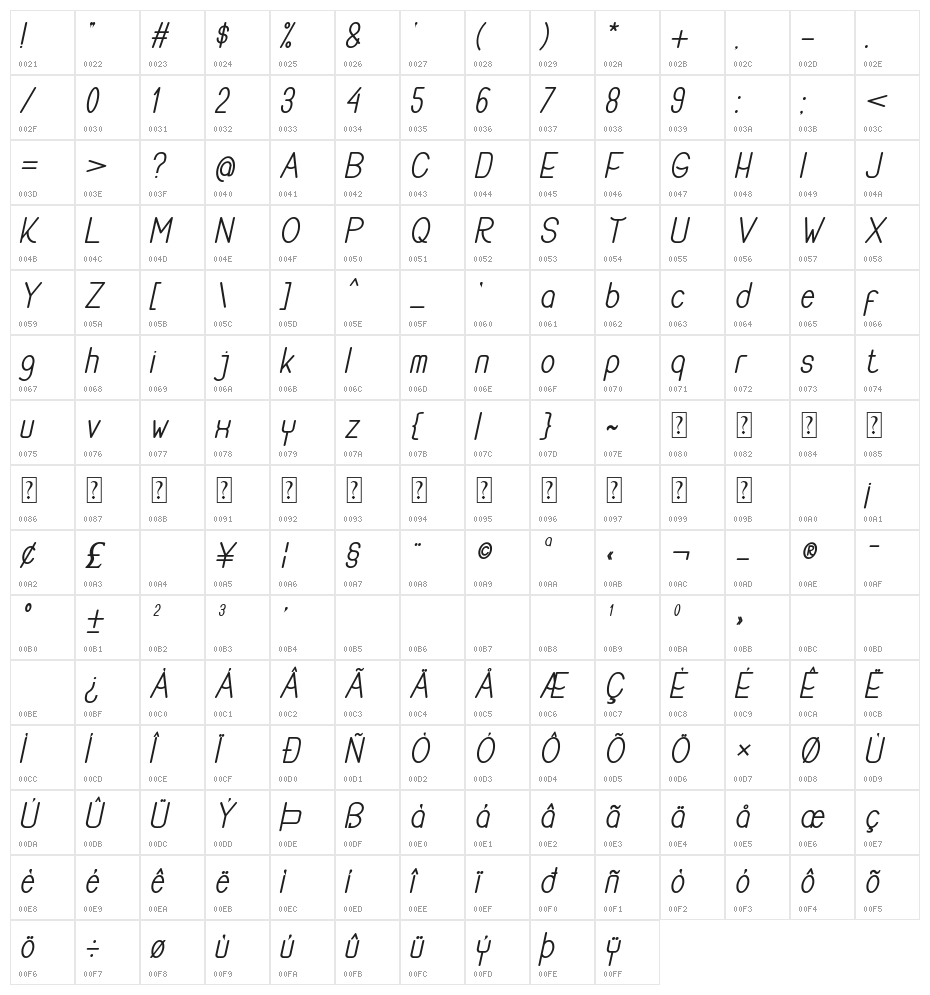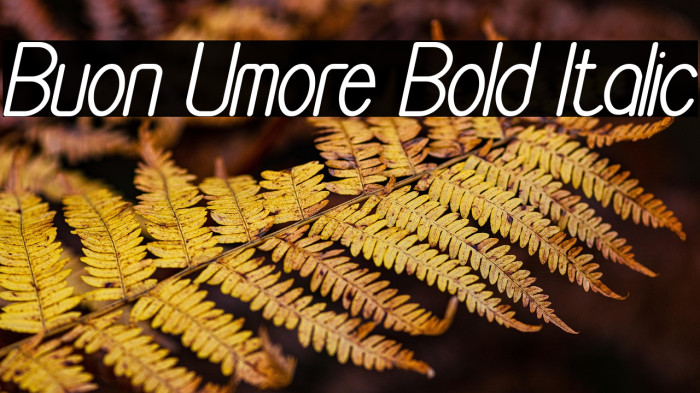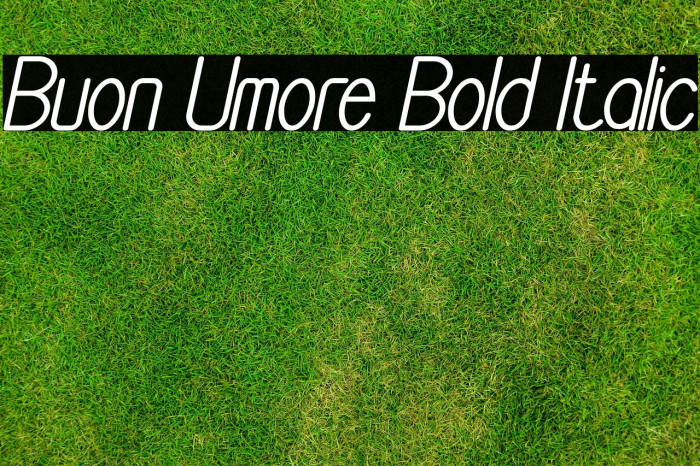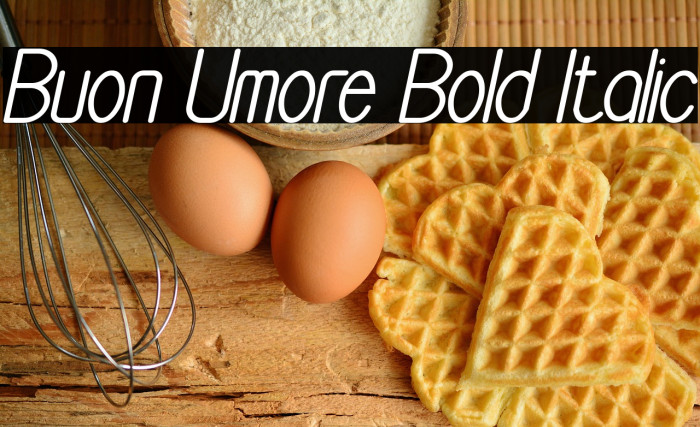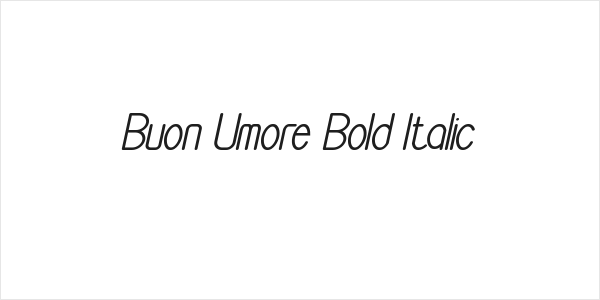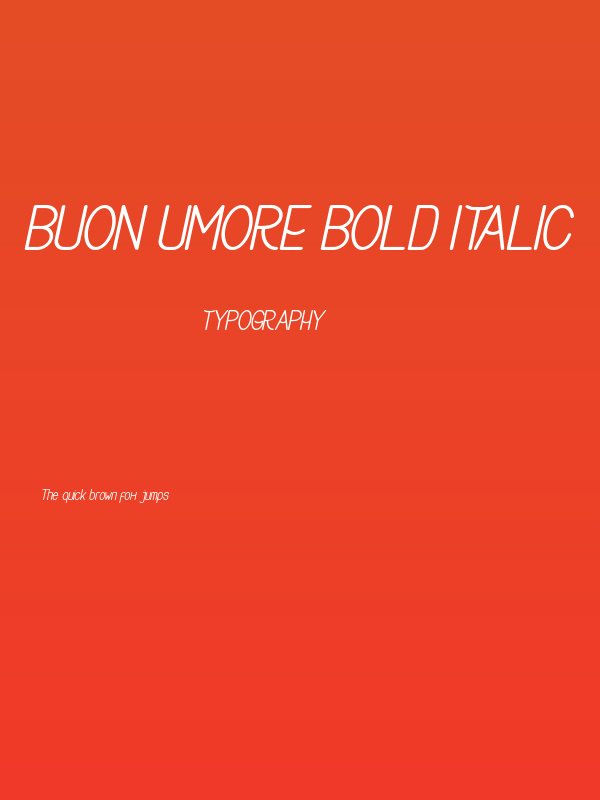
Buon Umore Bold Italic Font
Buon Umore Bold Italic Description
This font features a playful and dynamic style with a bold and italicized appearance. The characters are slightly condensed, giving it a unique and energetic look. The strokes are consistent in weight, providing a uniform appearance across all characters. The uppercase and lowercase letters maintain a cohesive design, with rounded edges that add a touch of softness. The numerals and special characters are designed to match the overall style, ensuring a harmonious look throughout. This font's lively and informal nature makes it suitable for projects that require a fun and engaging visual impact.